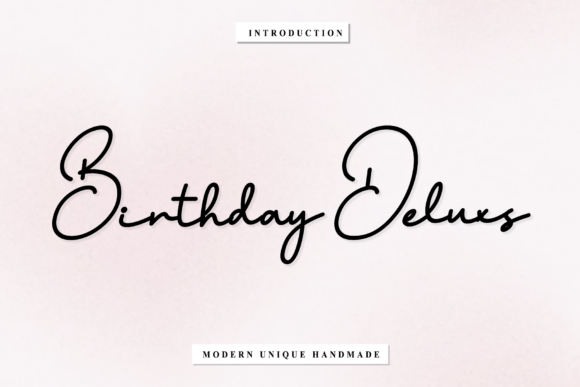
The Birth of a Beautiful Font: Discovering Birthday Deluxs
Have you ever been in the middle of a design project, and suddenly, you’re stuck on finding the perfect font? I recall a particularly frustrating experience while working on a branding project for a client’s birthday-themed business. The client wanted a font that was both elegant and playful, but I just couldn’t seem to find the right fit. That’s when I stumbled upon Birthday Deluxs, a lovely and timeless handwritten font that has since become a staple in my design toolkit.
A Personal Review of Birthday Deluxs
So, what makes Birthday Deluxs so special? Let’s dive into the good stuff! 😊
- ✨ Unique and Beautiful Touch: Every letter in Birthday Deluxs has a distinct, hand-crafted feel that adds a touch of personality to any design.
- ✅ Ease of Use: This font is incredibly versatile and works well for a wide range of design applications, from logos and branding to quotes and social media graphics.
- 💫 Elegant and Playful: Birthday Deluxs strikes the perfect balance between elegance and playfulness, making it ideal for designs that require a bit of whimsy.
Of course, no font is perfect, and Birthday Deluxs has a few minor quirks to consider:
- 🤔 Limited Multilingual Support: While Birthday Deluxs covers the basic English alphabet, it may not support more complex multilingual characters.
- ⚠️ Occasional Kerning Issues: As with any font, you may need to adjust kerning on certain letter combinations to achieve optimal results.
- Experiment with OpenType features, such as ligatures and stylistic alternates, to add visual interest.
- Explore the font’s glyphs and OpenType features to create stunning designs.
The Story Behind Birthday Deluxs
While the true story behind Birthday Deluxs remains a mystery, it’s easy to imagine that it was crafted with love and care by a talented type designer. Perhaps they were inspired by the joy of celebrating birthdays, the beauty of handwritten letters, or the elegance of classic typography. Whatever the inspiration, Birthday Deluxs is a true gem that brings a touch of magic to any design.
| Font Name | Birthday Deluxs Font |
| Author | Sansana |
| What makes Birthday Deluxs unique? | Its hand-crafted, elegant, and playful feel sets it apart from other fonts. |
| Does Birthday Deluxs support OpenType features? | Yes, Birthday Deluxs supports OpenType features, including ligatures and stylistic alternates. |